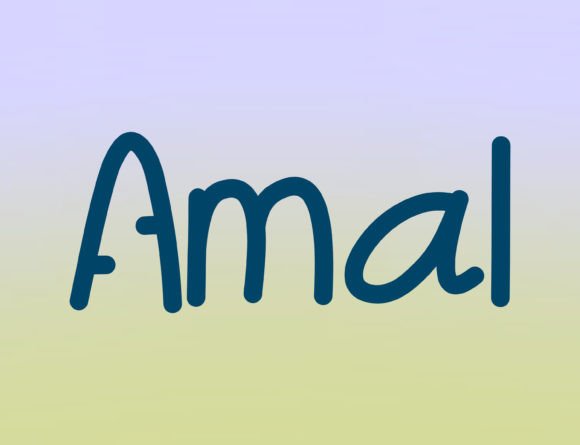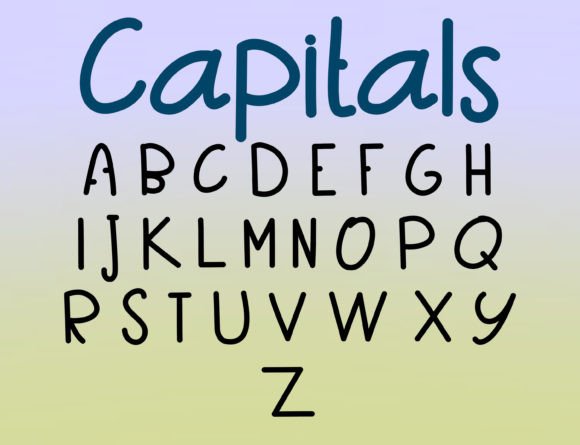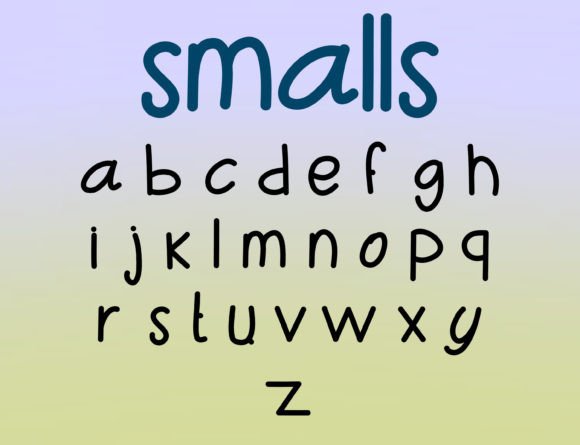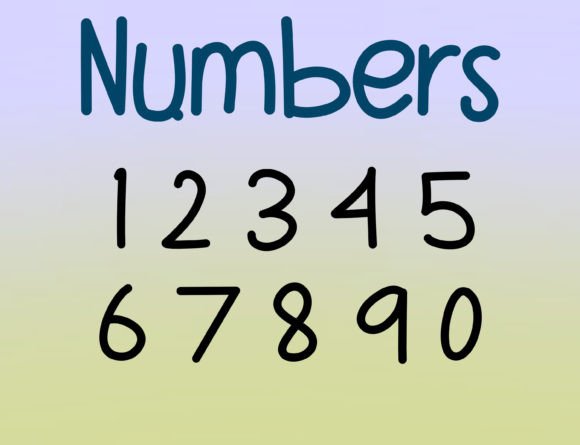
About Amal Font
Amal is a casual and fun handwritten font. Whether you’re using it for crafts, digital design, presentations, or making greeting cards, this font has the potential to become your favorite go-to font, no matter the occasion!